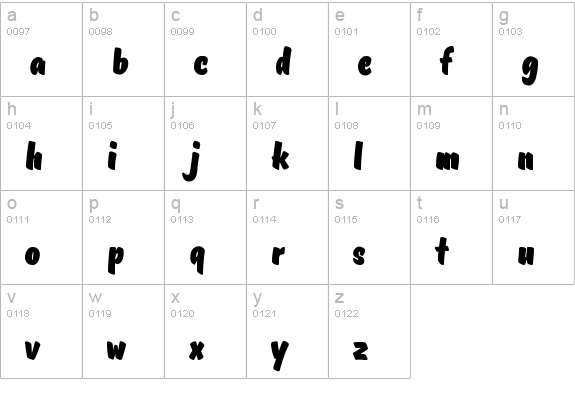
TT Masters Condensed Black Font Details
TT Masters Condensed Black is a maximum-weight, dramatic, condensed-width variant in the TT typeface family \xE2\x80\x94 well suited to maximum-impact headlines, posters, and packaging.
TT Masters Condensed Black is a bold and impactful font that exudes a sense of power and authority. With its condensed design and strong strokes, this typeface commands attention and makes a bold statement in any design project. Perfect for headlines, posters, and branding materials, TT Masters Condensed Black is a versatile font that adds a touch of sophistication to any visual composition. The best part? TT Masters Condensed Black is freely available for download at FontsMarket.com. Get your hands on this stunning font and elevate your designs with its bold and commanding presence. Don't miss out on the opportunity to add this impressive typeface to your font collection today!